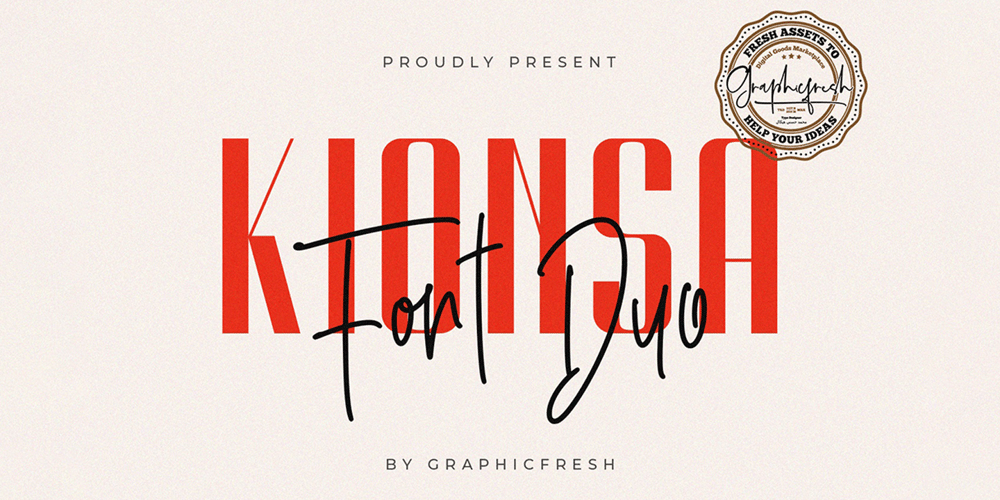
Kionsa
Kionsa font
Kionsa Font Family was designed by Muhammad Husni Haikal and published by Graphicfresh. Kionsa contains 4 styles and family package options. Kionsa is a font duo consisting of a script and an ultra condensed sans. It comes in an elegant retro style which is perfect to make any design stand out! This font is perfect for branding, wedding invites, magazines, mugs, business cards, quotes, posters, and more.Thanks!